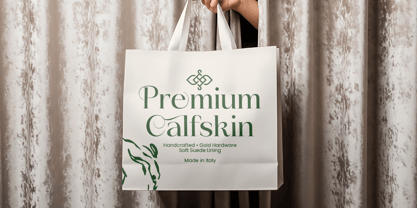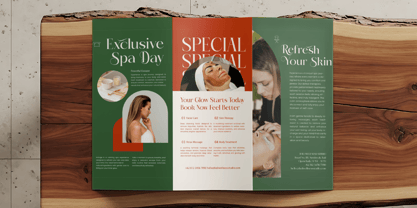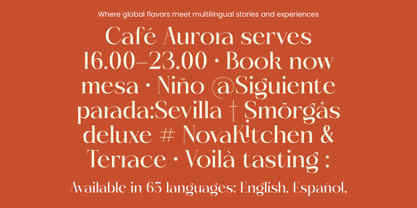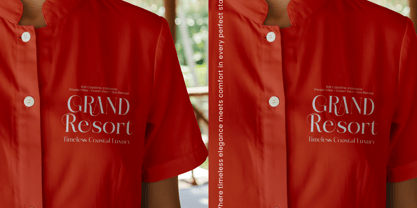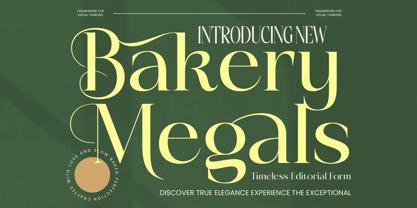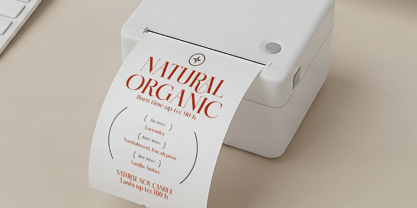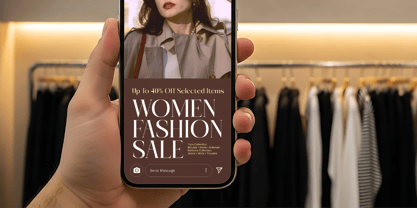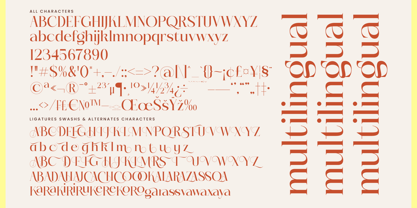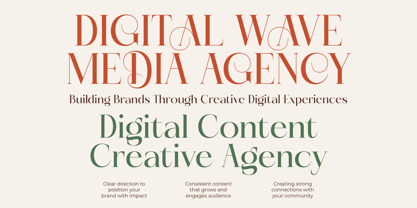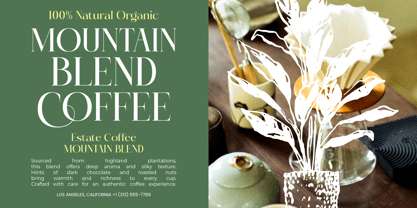
Bakery Megals
La familia tipográfica Bakery Megals fue diseñada por Heru Utama Putra y publicada por Timelesstype Studio. Bakery Megals contiene 2 estilos y opciones de paquete familiar. Más información sobre esta familia
Bakery Megals – Elegant Luxury Serif is a masterclass in high-end design, blending classic serif structures with a distinctly contemporary flair. This typeface is specifically engineered for professional designers seeking to convey prestige and exclusivity through their visual narratives. By integrating bold, high-contrast strokes and delicate hairlines, Bakery Megals – Elegant Luxury Serif offers a visual balance that is both commanding and undeniably graceful. Experience the pinnacle of sophisticated typography through a rich library of 35 unique ligatures and 61 stylish alternates. The high-contrast letterforms of Bakery Megals – Elegant Luxury Serif provide a rhythmic flow that captures the eye and elevates the reading experience. Its flowing, curvaceous swashes and sharp serifs create a harmonious aesthetic that feels custom-tailored for premium visual identities. Whether utilized for striking headlines or elegant subtext, Bakery Megals – Elegant Luxury Serif ensures every character resonates with modern luxury.